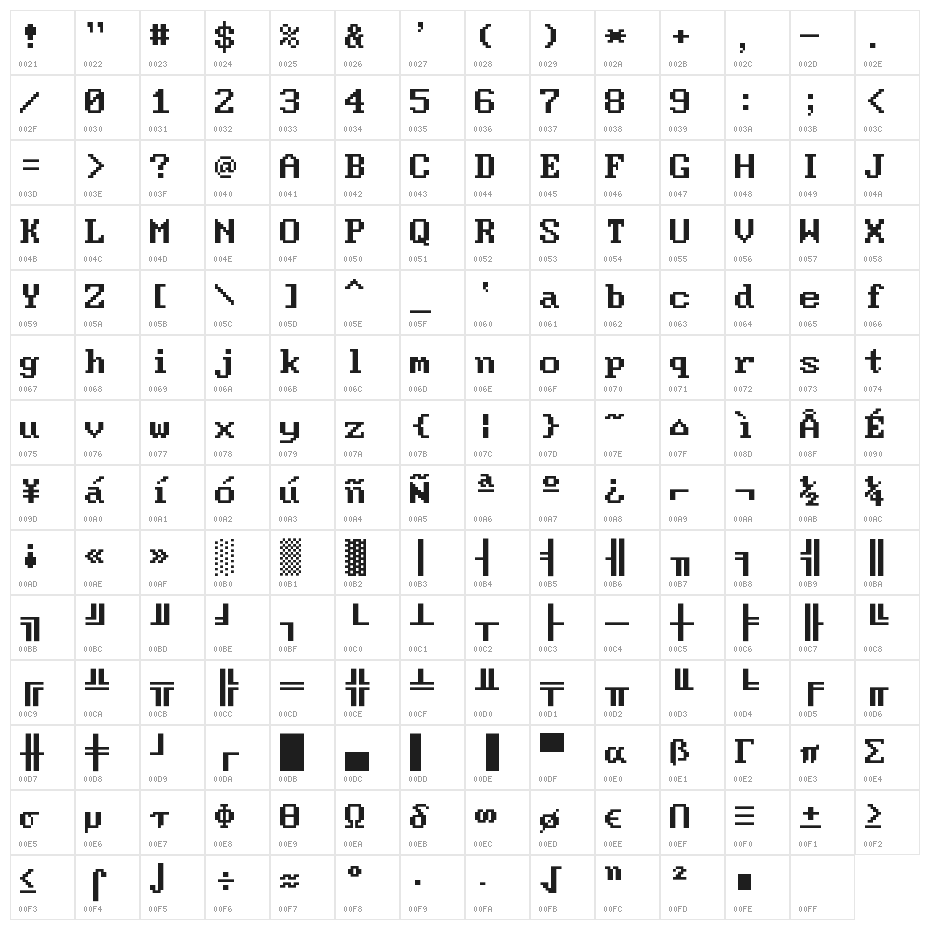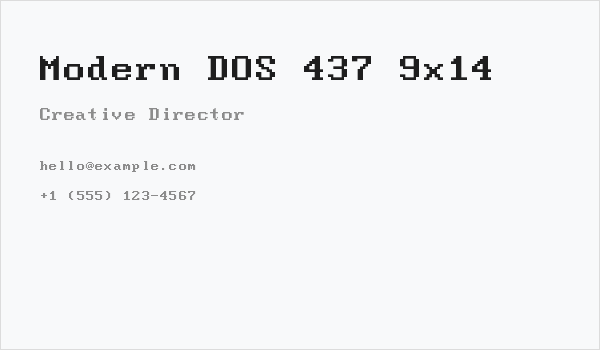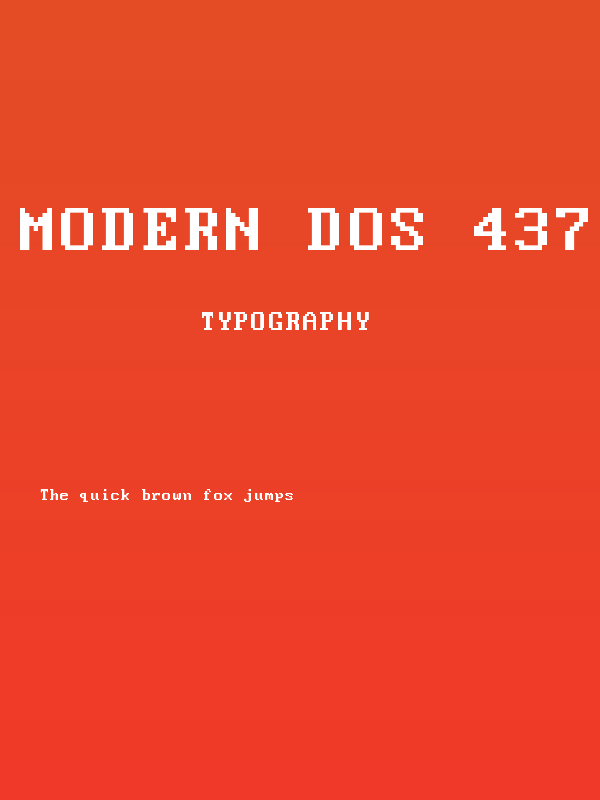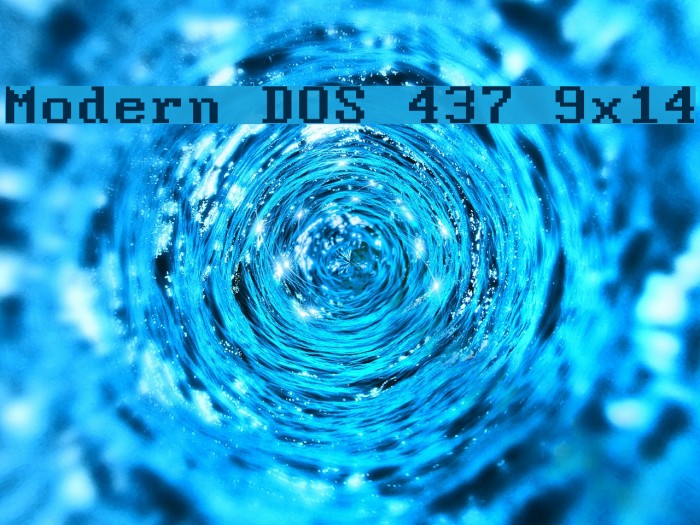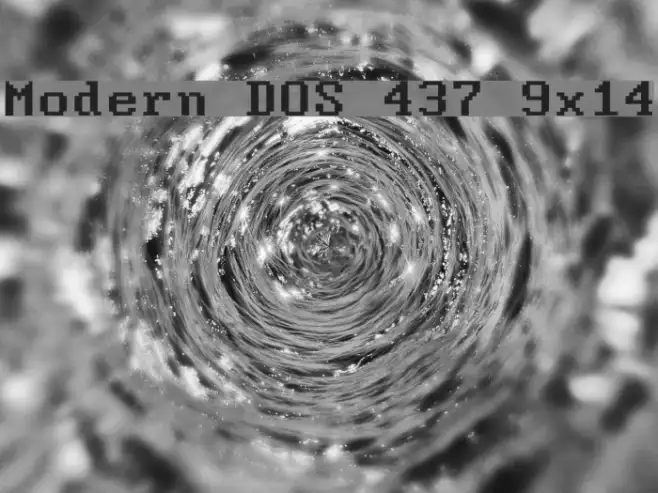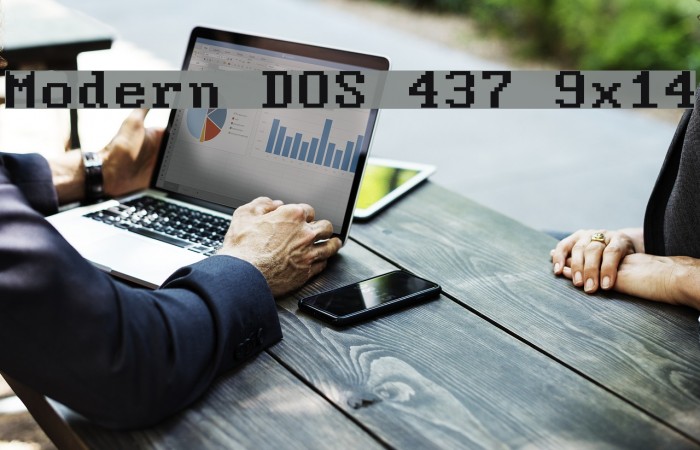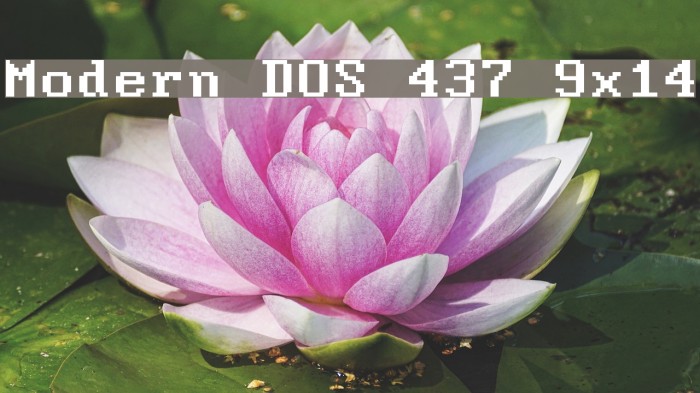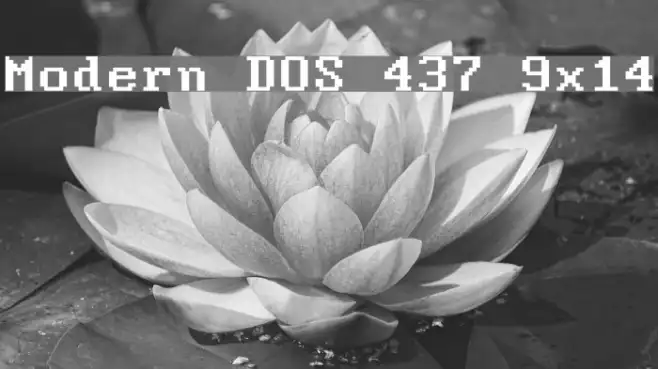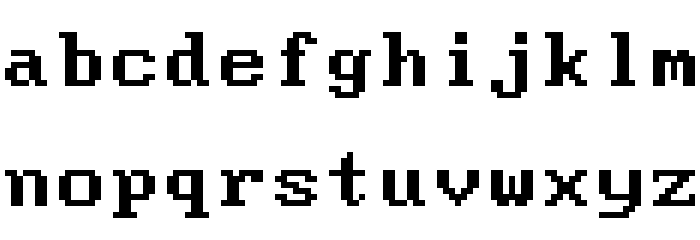
Modern DOS 437 9x14 Font
Modern DOS 437 9x14 Description
This font features a classic pixelated design reminiscent of early computer displays. Each character is composed of a grid-like pattern, giving it a distinctly retro and digital feel. The uppercase and lowercase letters maintain a consistent height, with sharp, blocky edges that enhance its vintage computer aesthetic. Numbers and special characters follow the same pixelated style, ensuring uniformity across all glyphs. This font is ideal for projects that aim to evoke nostalgia or pay homage to the early days of digital typography.